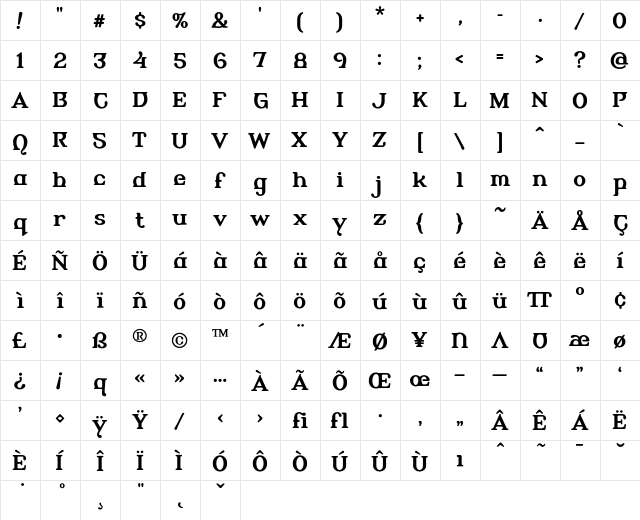
AlembicBeta BoldOne Font Preview
AlembicBeta BoldOne
Design Context for AlembicBeta Typeface
AlembicBeta offers clean, dependable letterforms without strong stylistic allegiance, making it a practical choice for designers who need flexibility. Its bold stroke weight gives it real presence on the page.